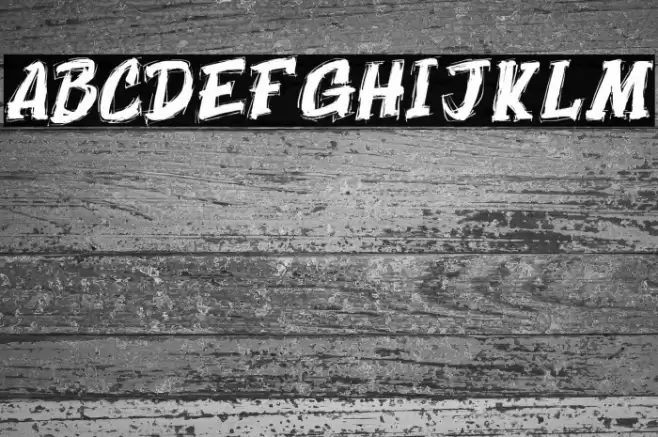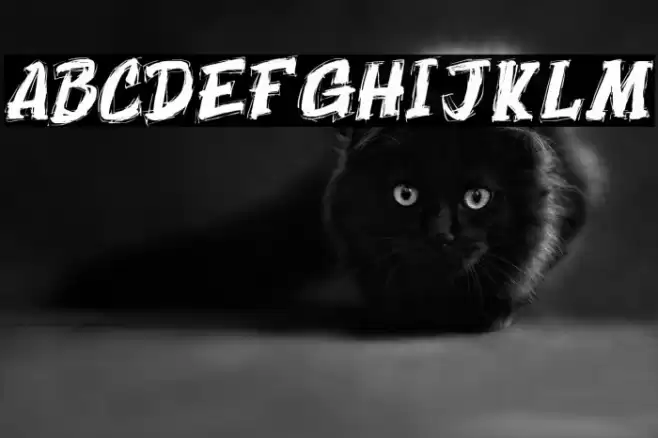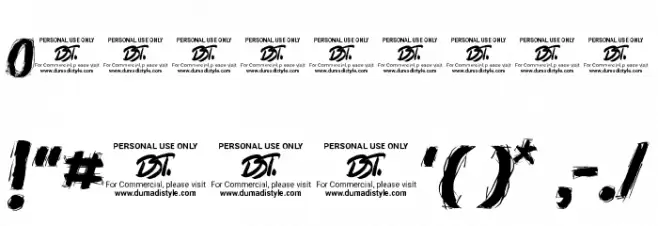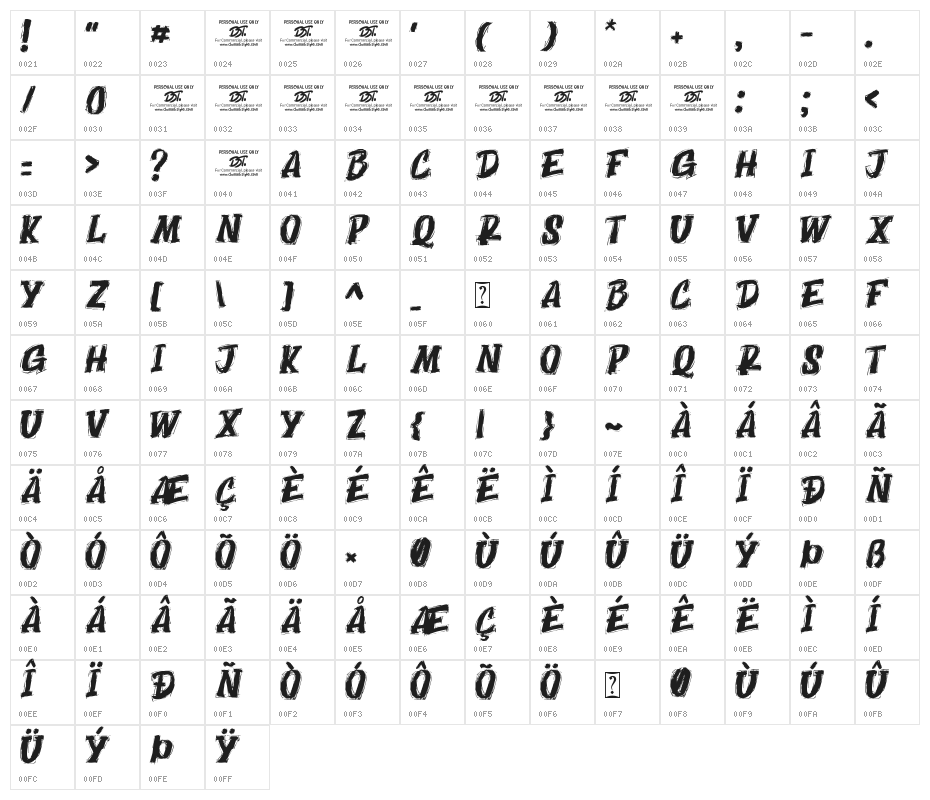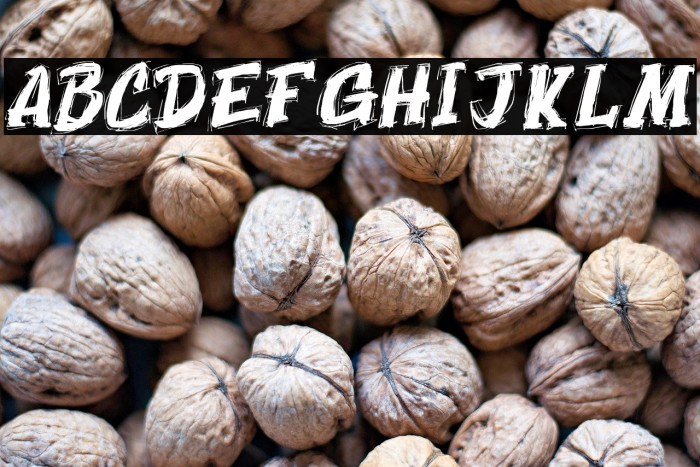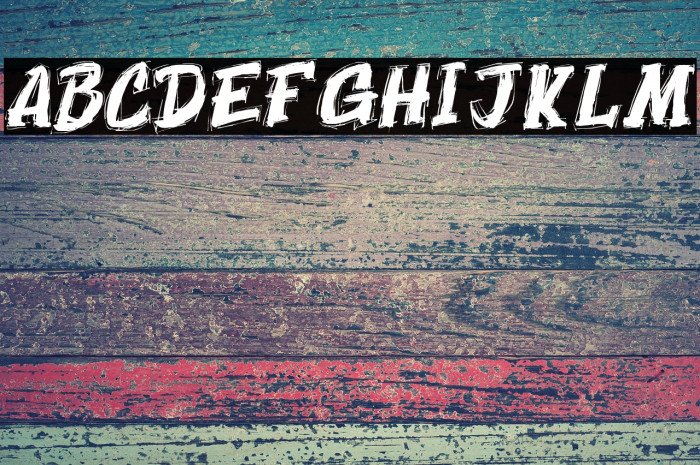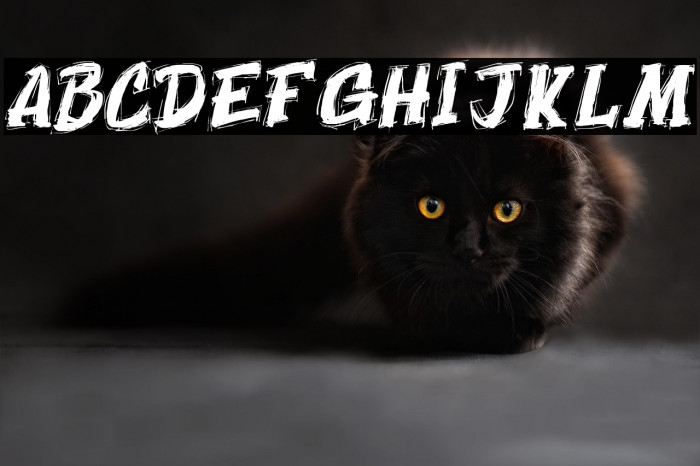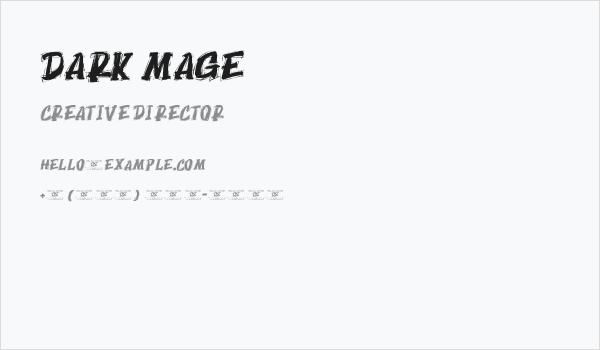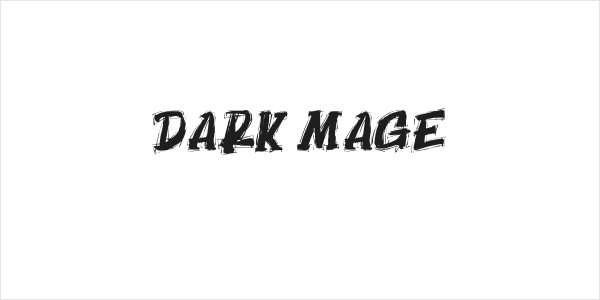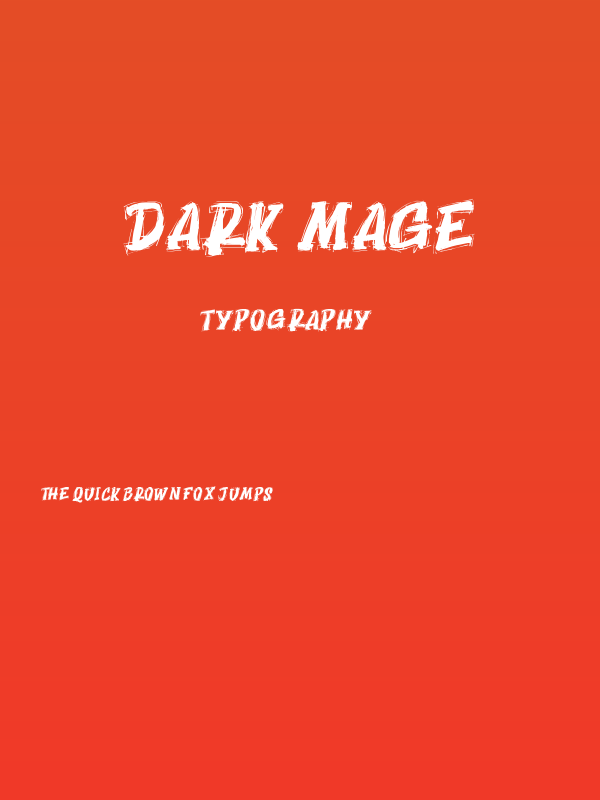
Dark Mage Font
Dark Mage Description
This font features a bold and dynamic style with a hand-drawn appearance. The characters are designed with a rough, textured edge that gives them a sense of movement and energy. The strokes are thick and irregular, creating a dramatic and impactful look. This font is ideal for projects that require a strong visual presence, such as posters, headlines, or branding materials. The uppercase and lowercase letters maintain a consistent style, with each character exhibiting unique variations that add to the overall aesthetic. The numbers and special characters are equally expressive, ensuring a cohesive look across all text elements.
A bold, textured font with a dynamic, hand-drawn style from Uncategorized fonts.
- Font: Dark Mage
- Proposed Projects: Ideal for posters, headlines, branding, and any project requiring a strong visual impact.